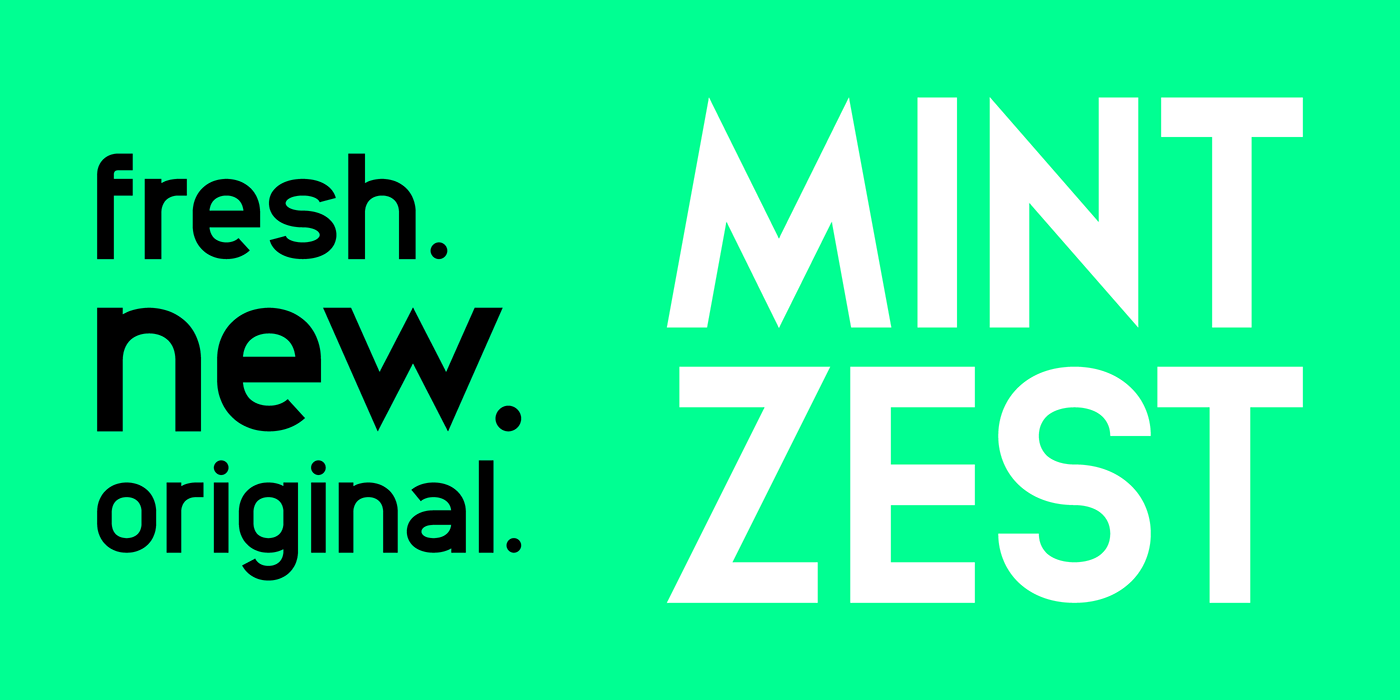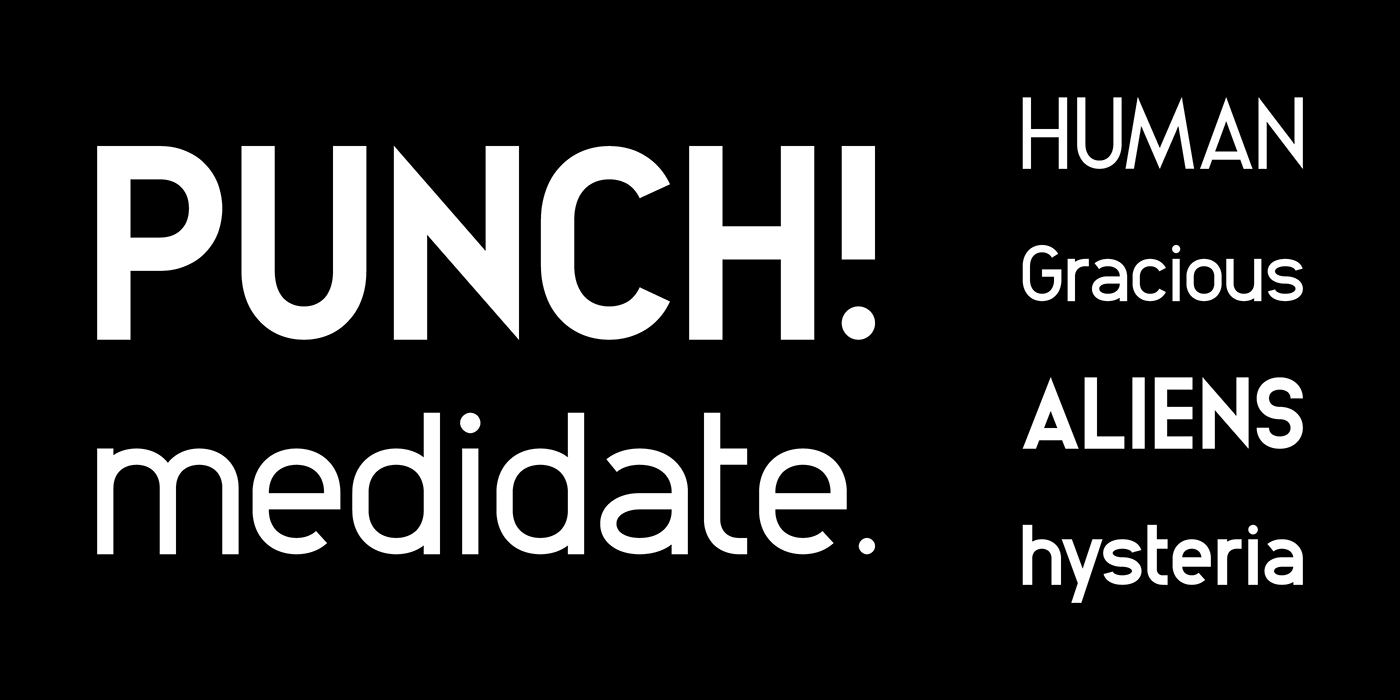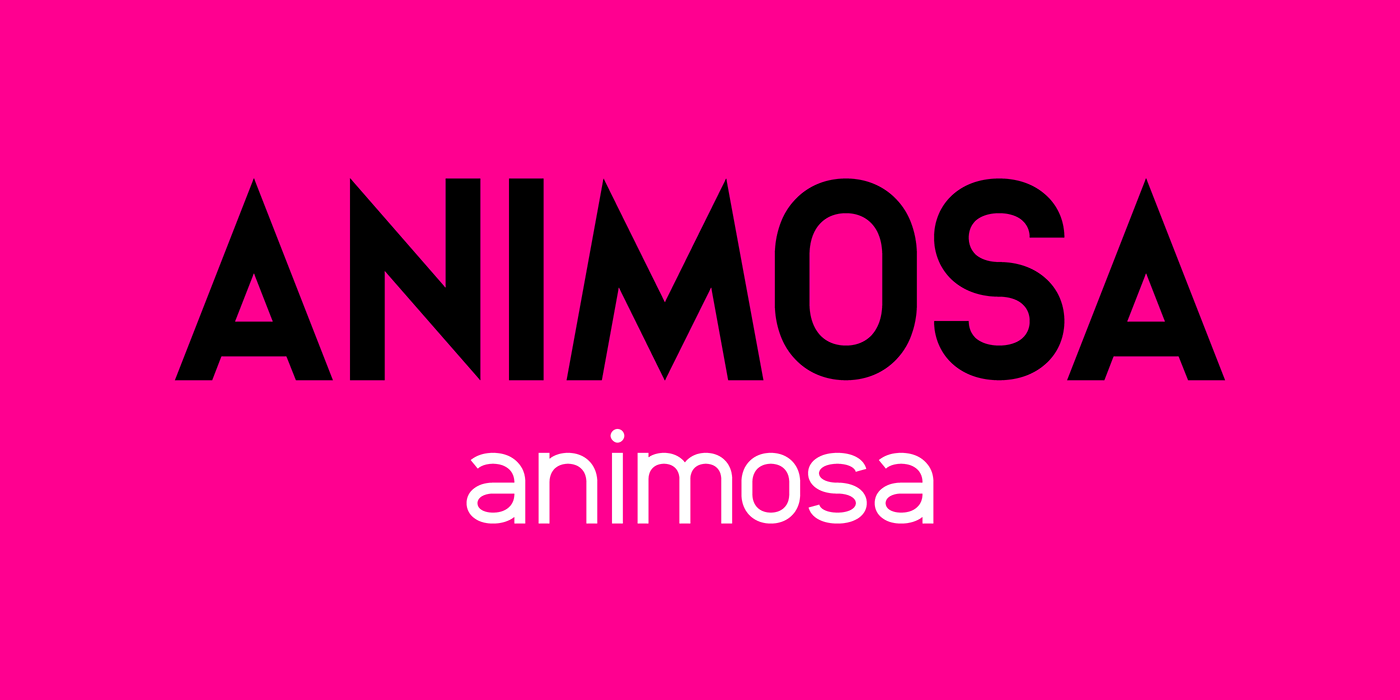
Animosa Font Family
This is a no fuss sans serif font with classic shapes, with its simple, beautiful lines . Introducing Animosa Free Font Family. Animosa Font Familyis a font family high in spirit and even in temperament. Animosa is perfect for branding projects and for logos. It is beautiful for quotes, logos, invitations, magazines, web, and more. It’s easy to use in multiple contexts and works super well for branding suites.